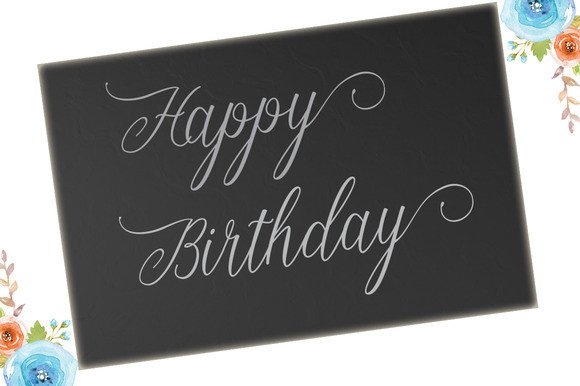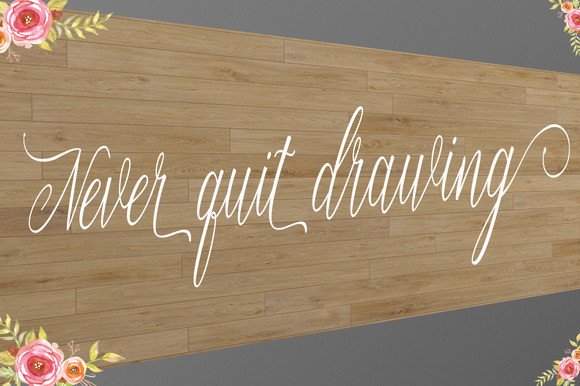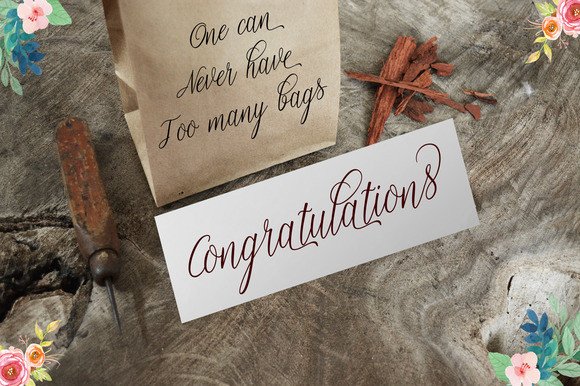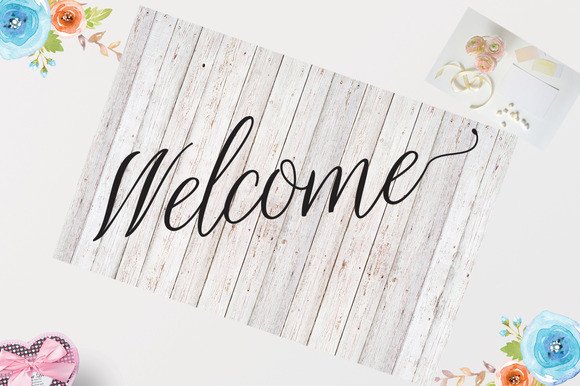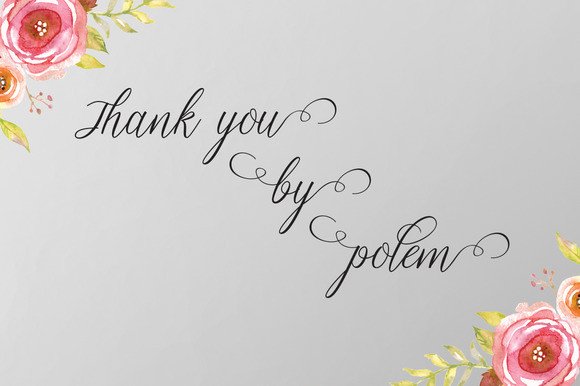
The Birth of a Beautiful Script: Unveiling the Ambarella Font
Have you ever been scribbling away in a notebook, letting your pen wander across the page, and suddenly, a beautiful script emerges? That’s exactly what happened when the Ambarella Font was born – a handmade modern typeface that embodies the essence of calligraphy. With its natural writing style, this font is perfect for adding a touch of elegance to your designs, whether it’s a wedding invitation, a letterhead, or even a signature.
The Ambarella Font is a treasure trove for designers, offering a unique and versatile tool to create visually stunning pieces. Its adaptability makes it an ideal choice for a wide range of projects, from posters and t-shirts to digital designs and more. With the Ambarella Font, you can add a personal touch to your work, making it truly special and memorable.
Ambarella Font Key Features
- Unique Characteristics: Features a unique, modern design with a mix of geometric and organic elements, making it suitable for various design applications.
- Font Family: Part of a larger font family with multiple weights and styles, allowing for flexibility in design projects.
Ambarella Font Review
I recently had the chance to work with Ambarella Font, and I’m excited to share my honest review.
- Beautiful brush script design: Ambarella Font’s elegant and flowing strokes make it perfect for creative projects that require a touch of sophistication.
- Highly customizable: With over 600 glyphs, this font offers a wide range of customization options to suit various design needs.
- Perfect for logos and branding: Ambarella Font’s unique style makes it an excellent choice for creating memorable logos and branding materials.
- Limited font sizes: Ambarella Font may not be the best choice for large-scale text, as the strokes can become distorted at bigger sizes.
- Not ideal for body text: While Ambarella Font is great for headlines and titles, it may not be the most readable font for large blocks of body text.
Ambarella Font is a stunning brush script font that’s perfect for designers looking to add a touch of elegance and sophistication to their projects. While it may have some limitations, its unique style and high customizability make it a valuable addition to any design library.
Tips for Getting the Most Out of Ambarella Font
For optimal results, use Ambarella Font with high-contrast colors and bold text to make it stand out.
Ambarella Font is best used for headings, titles, and short paragraphs where legibility is crucial.
Ambarella Font is ideal for:
- Displaying headings and titles.
- Creating a unique and modern design aesthetic.
- Adding a touch of elegance to your content.
Alternatives to Ambarella Font
Great Vibes is a beautiful, elegant script font perfect for creating a luxurious and sophisticated look. It’s ideal for high-end branding, weddings, and special occasions. Great Vibes has a more refined and polished feel compared to Ambarella Font, which makes it suitable for formal and professional projects.
Carolyna Pro is a modern, cursive font that exudes a sense of sophistication and elegance. It’s perfect for fashion, beauty, and luxury brands, as well as for creating invitations, menus, and other high-end materials. Carolyna Pro has a more refined and precise feel compared to Ambarella Font, making it suitable for projects that require a touch of sophistication.
Alex Brush is a beautiful, elegant script font that’s perfect for creating a warm and inviting look. It’s ideal for branding, packaging, and other design projects that require a touch of personality and charm. Alex Brush has a more relaxed and casual feel compared to Ambarella Font, making it suitable for projects that require a friendly and approachable tone.